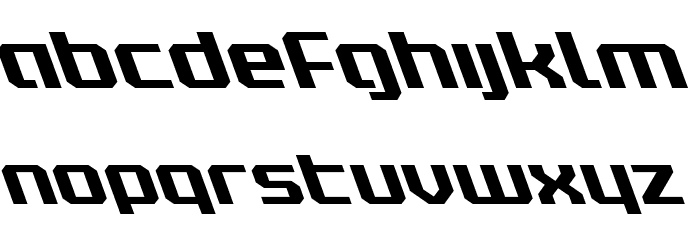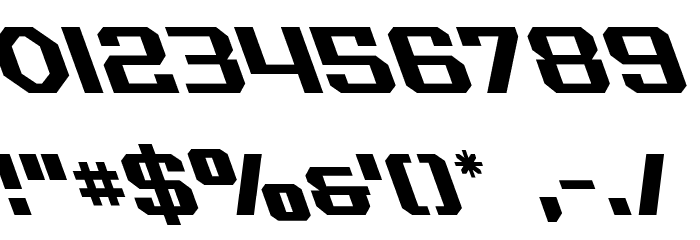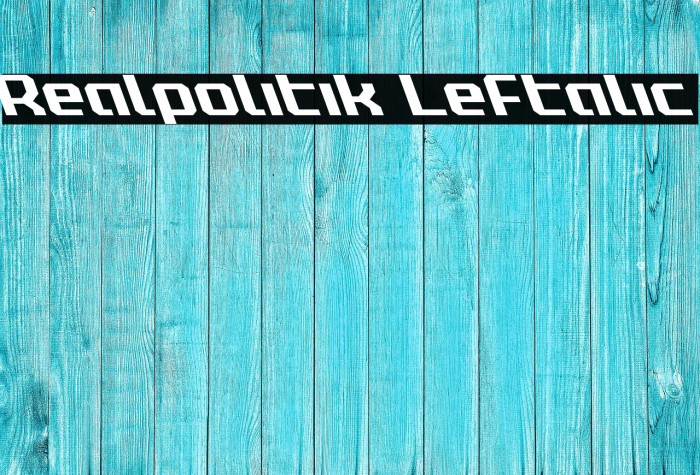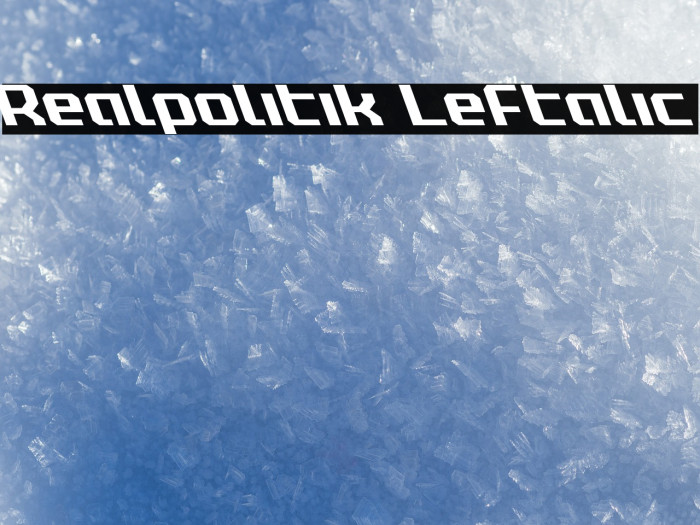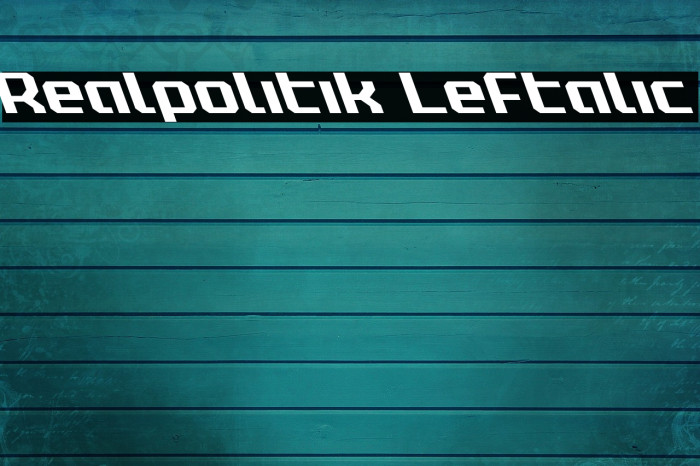
Realpolitik Leftalic Font
This font features a bold, angular design with a distinct geometric style. The characters are sharply cut with a futuristic and industrial feel, making it stand out with its unique left-leaning italic slant. The uppercase and lowercase letters maintain a consistent width, creating a uniform appearance. The numbers and special characters follow the same angular and bold design, ensuring cohesion across all elements. The font's strong presence and modern aesthetic make it suitable for impactful designs.
A bold, angular font with a geometric, left-leaning italic style.
- Proposed Projects: Ideal for branding, posters, and digital media where a strong, modern look is desired.